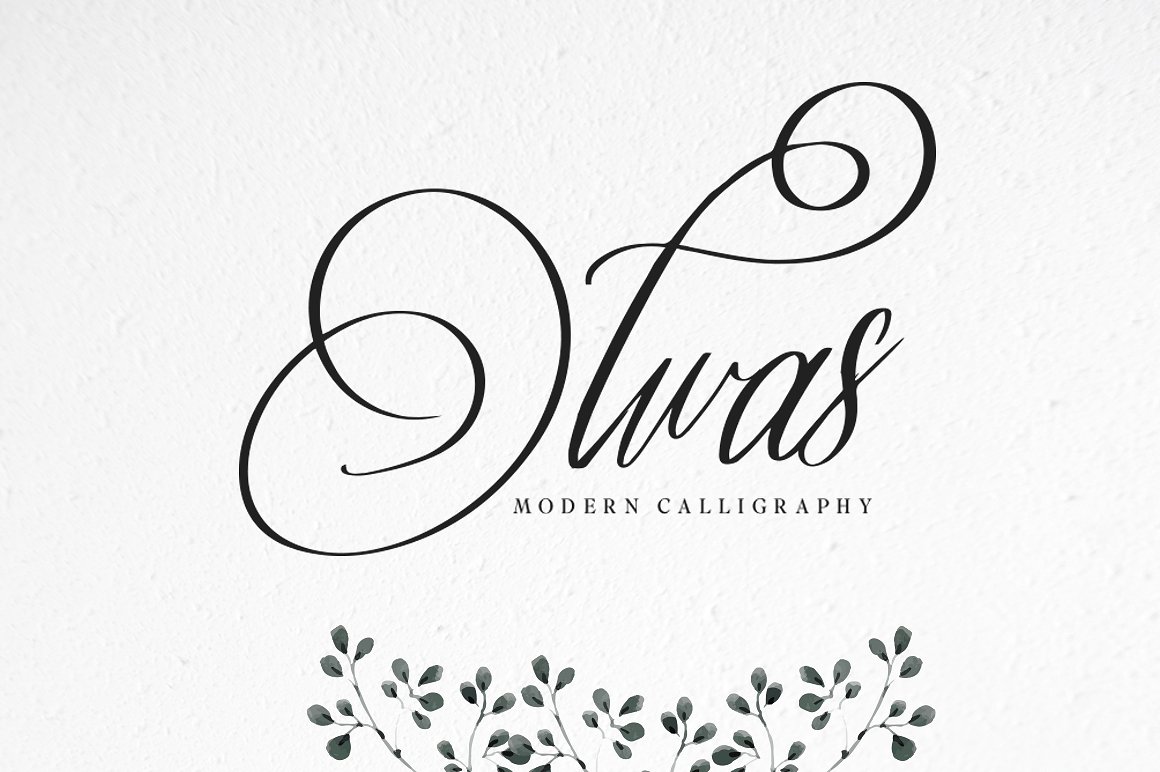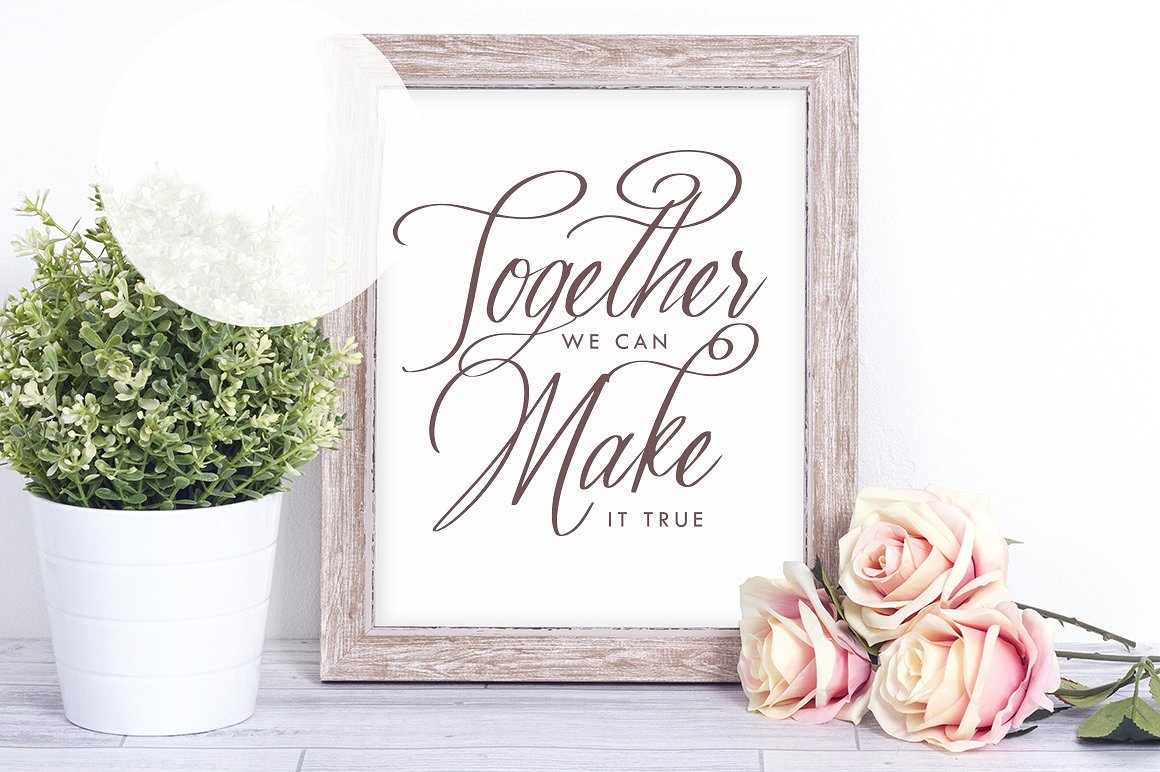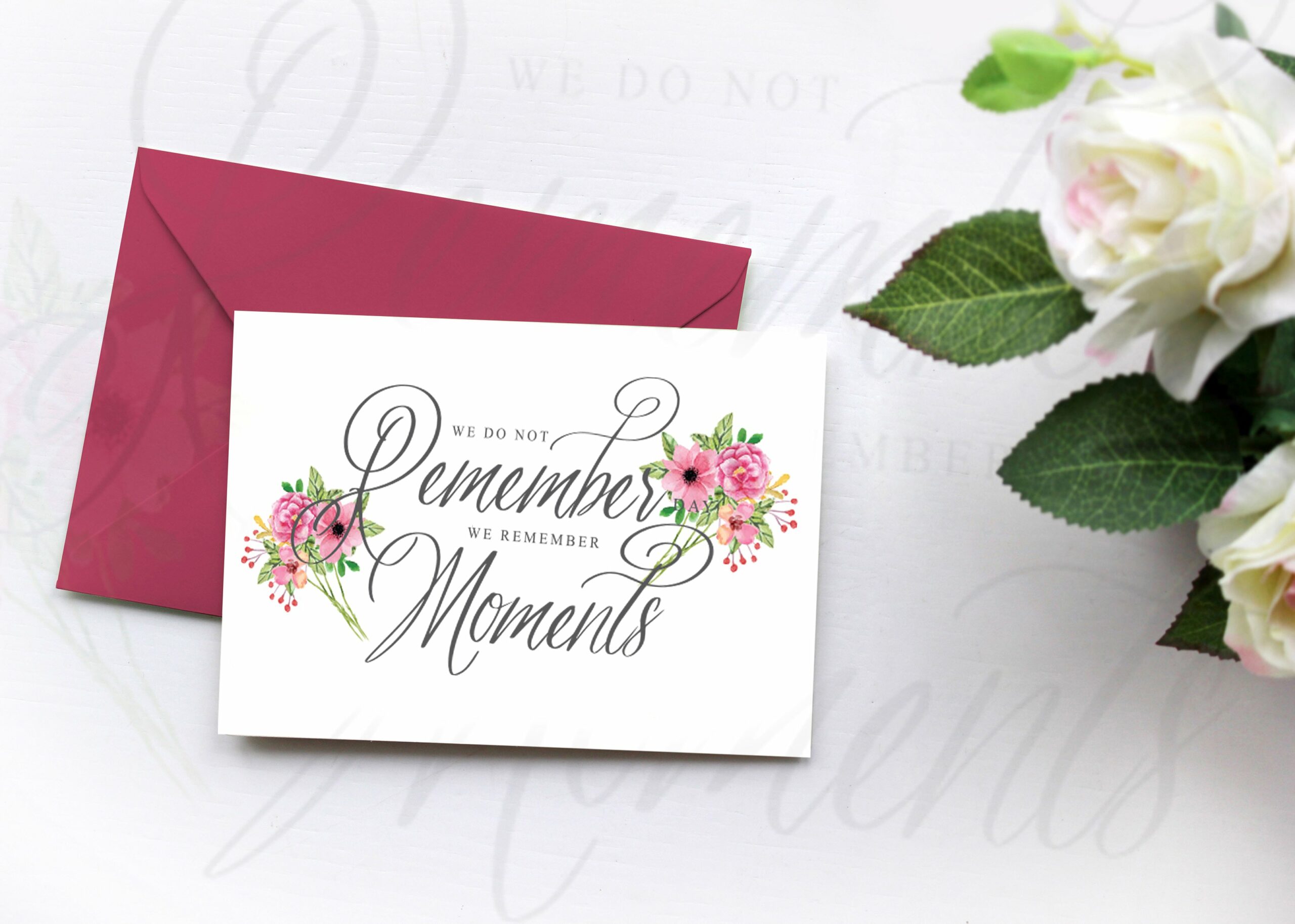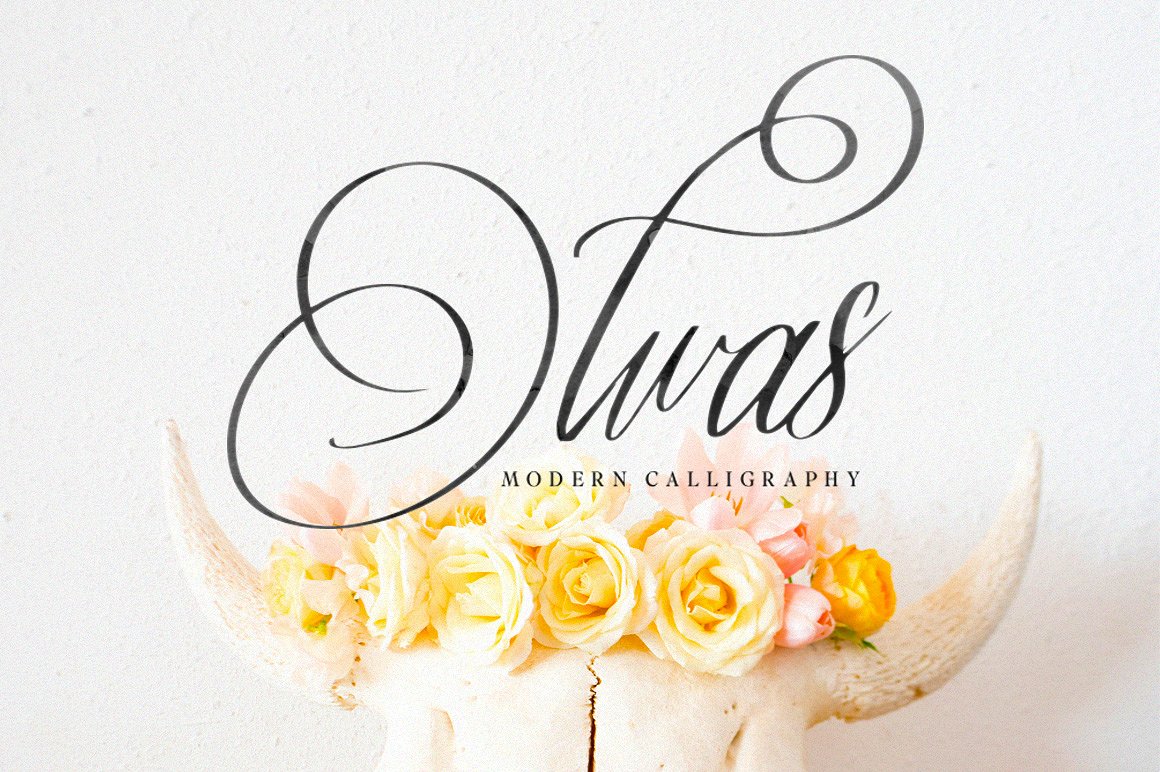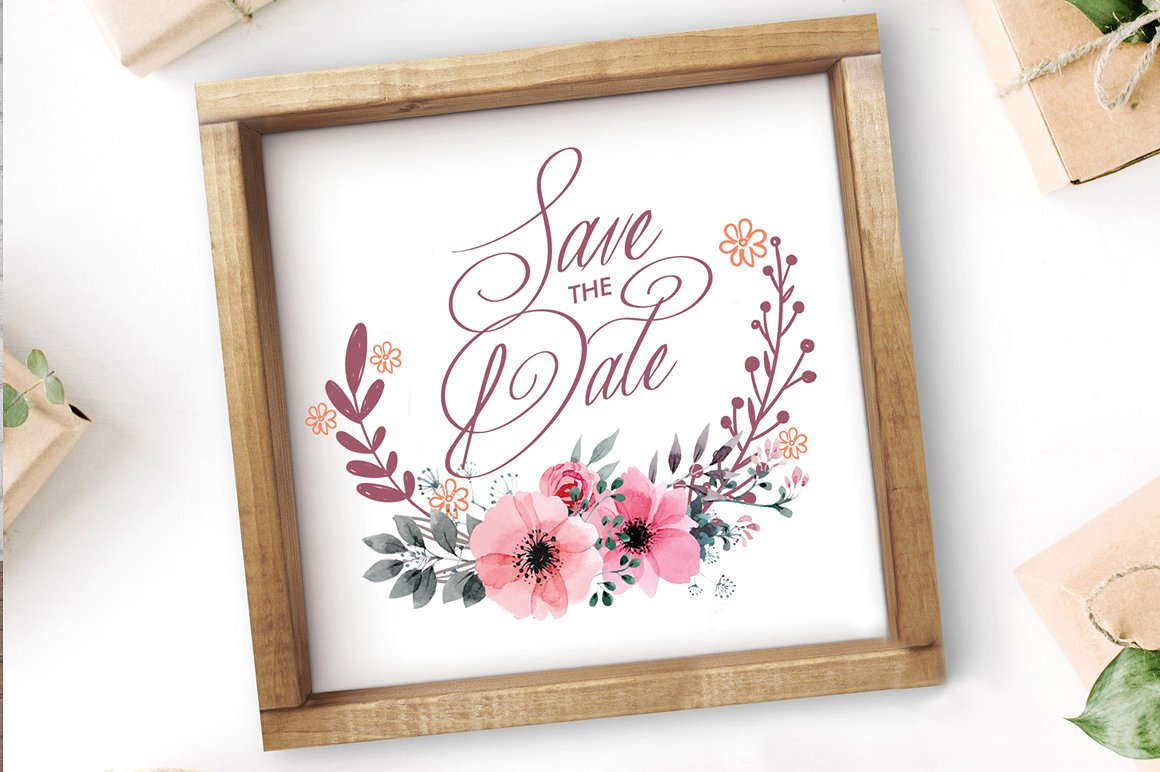
Olwas Font
About Olwas Font
The Olwas Script is a modern calligraphy font.
It’s the perfect font for logotype, headers, fashion & apparel, invites and much more. It features an elegant style with smooth curves.